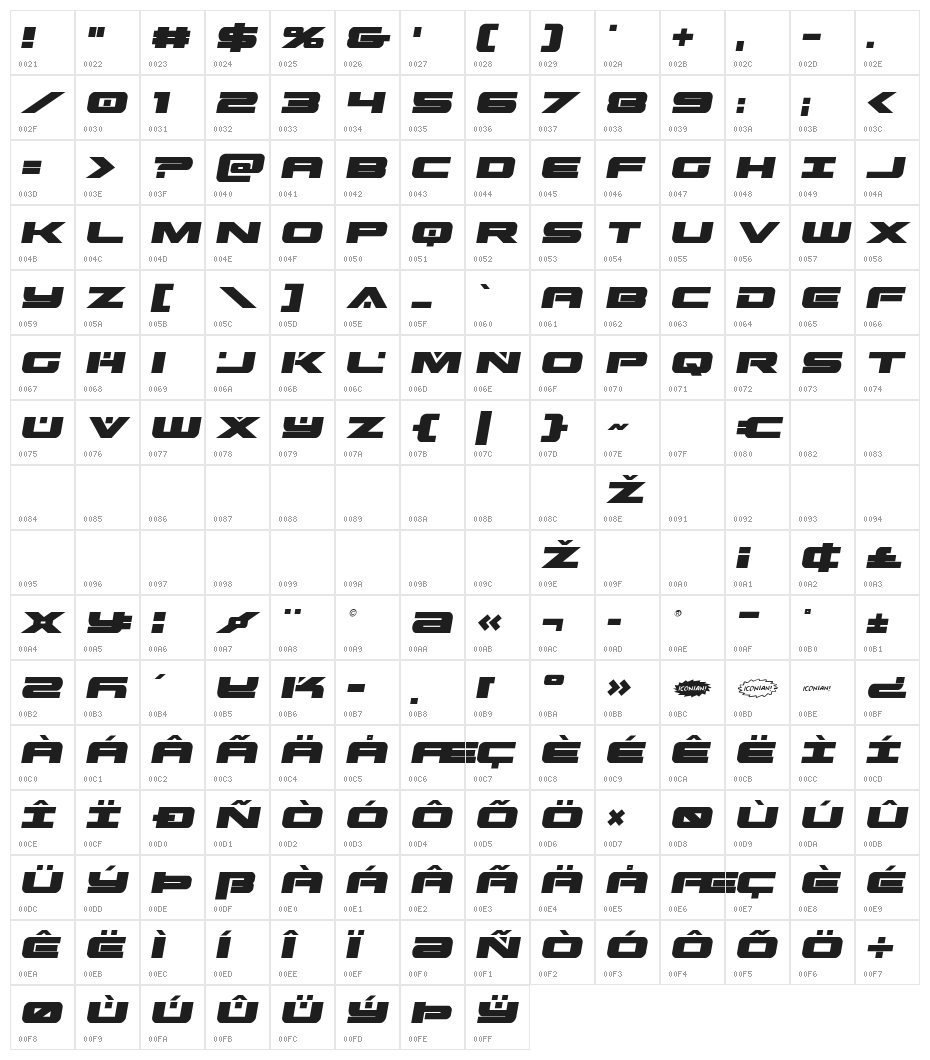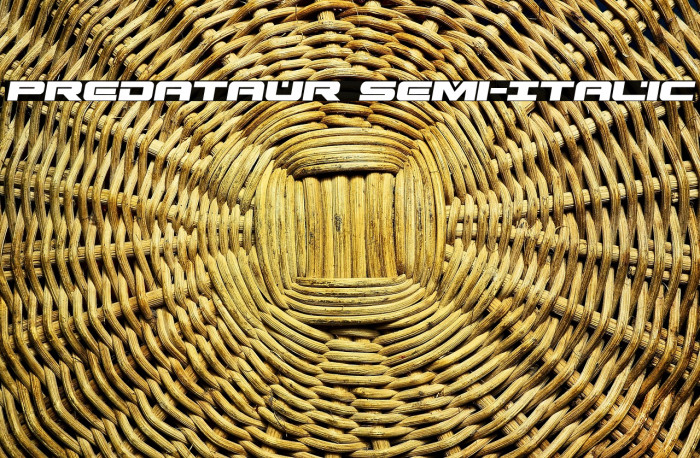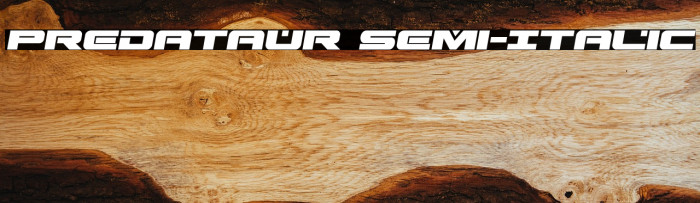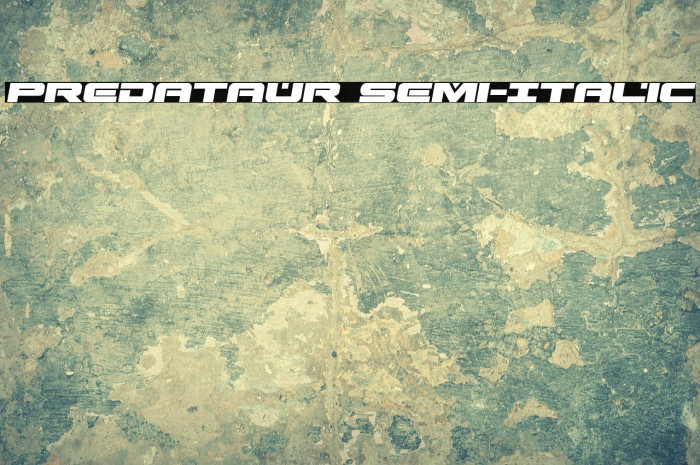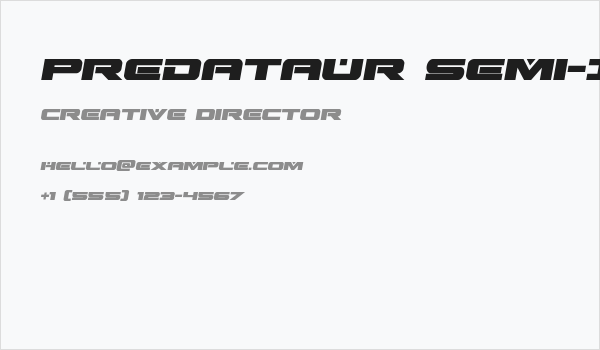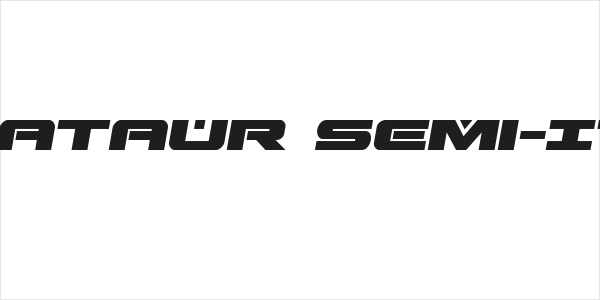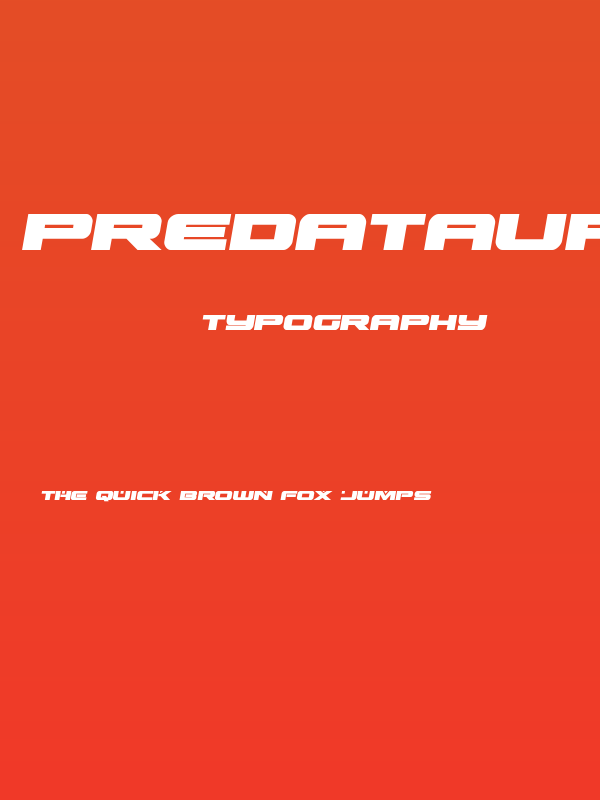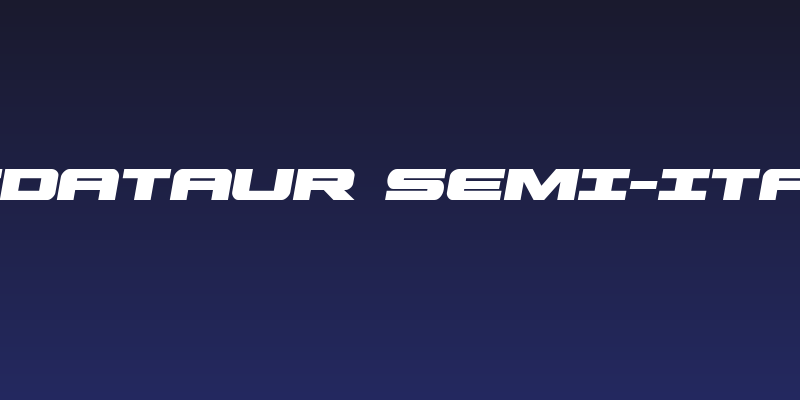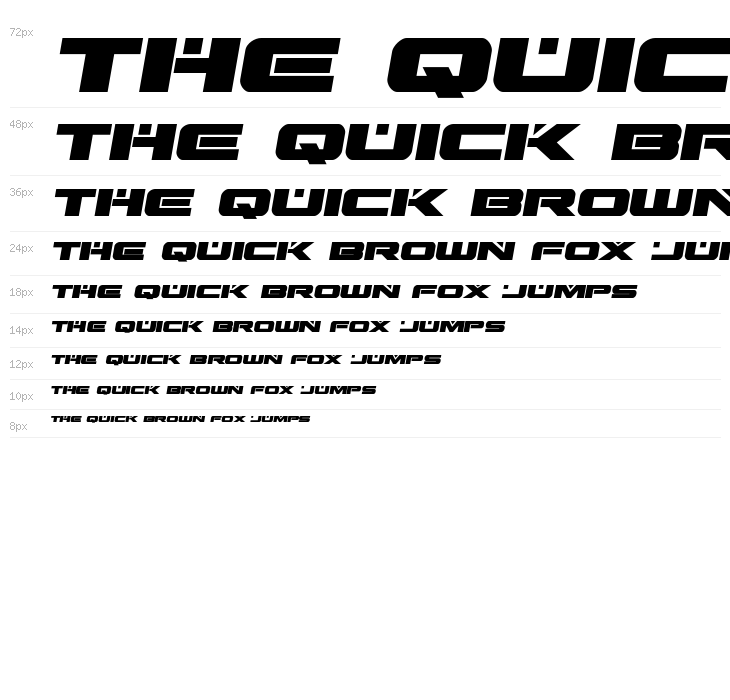
Predataur Semi-Italic Font
Predataur Semi-Italic Description
This font features a bold, futuristic design with a semi-italic slant, giving it a dynamic and forward-moving appearance. The characters are wide and blocky, with sharp angles and a strong presence. The uppercase and lowercase letters maintain a consistent style, emphasizing readability while retaining a unique aesthetic. The numbers and special characters follow the same design principles, ensuring uniformity across all glyphs. This font's boldness and distinct style make it suitable for attention-grabbing applications.
| Proposed Projects | Ideal for sci-fi themed projects, video game titles, technology branding, and modern posters. |